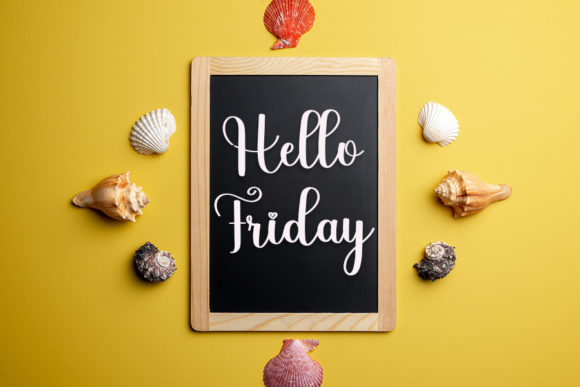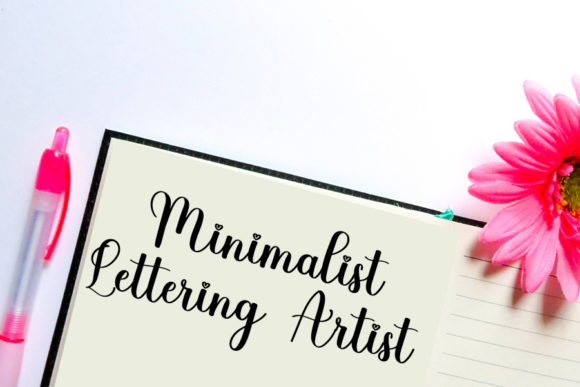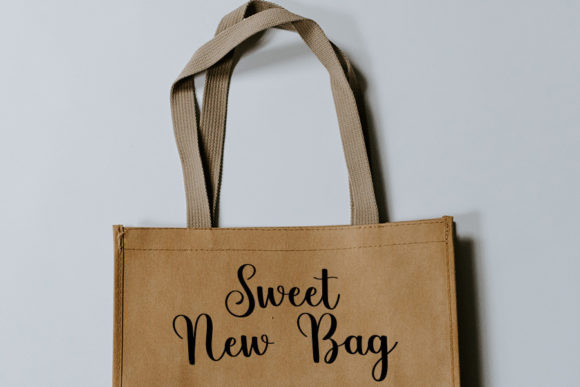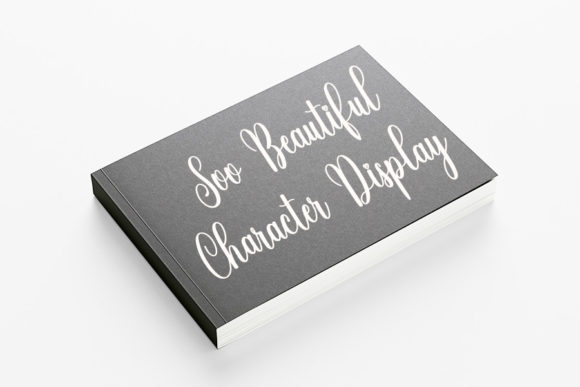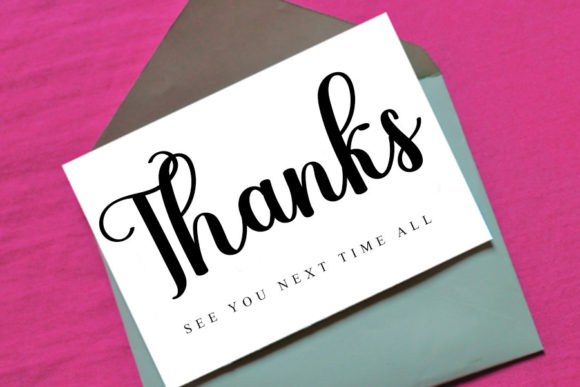
The Boho Font: A Flowing and Graceful Script for Creative Projects
I’ll never forget the moment I stumbled upon the Boho font while working on a wedding invitation project for a client. I had spent hours browsing through font libraries, but nothing seemed to fit the elegant and whimsical vibe I was going for. That was until I saw Boho – a beautiful, flowing script font that instantly captured my attention. Its ravishing style had me hooked, and I knew I had found the perfect fit for my project.
An Honest Review of Boho Font
• ✨ Elegant and flowing script style that’s perfect for creating beautiful wedding invitations, stationery art, and social media posts.
• ✅ Highly legible, even at smaller font sizes.
• ✨ Supports OpenType features, glyphs, and stylistic alternates, giving you plenty of creative options.
While Boho font is an excellent choice for many projects, there are a few things to keep in mind:
• ⚠️ Some users have reported issues with kerning, particularly with certain letter combinations.
• 🤔 The font may not be the best choice for body text or long paragraphs, as it can be a bit ornate for reading.
The Story Behind Boho Font
Boho font was designed by a team of typographers who wanted to create a beautiful and elegant script font that would evoke the feeling of bohemian style. Inspired by vintage typography and hand-lettering, Boho font is a unique and eye-catching choice for any design project.
Font Name Boho Font
Author FreshTypeINK
What is Boho font? Boho font is a flowing and elegant script font perfect for creating beautiful wedding invitations, stationery art, and social media posts.
Is Boho font suitable for body text? No, Boho font is not recommended for body text or long paragraphs, as it can be a bit ornate for reading.